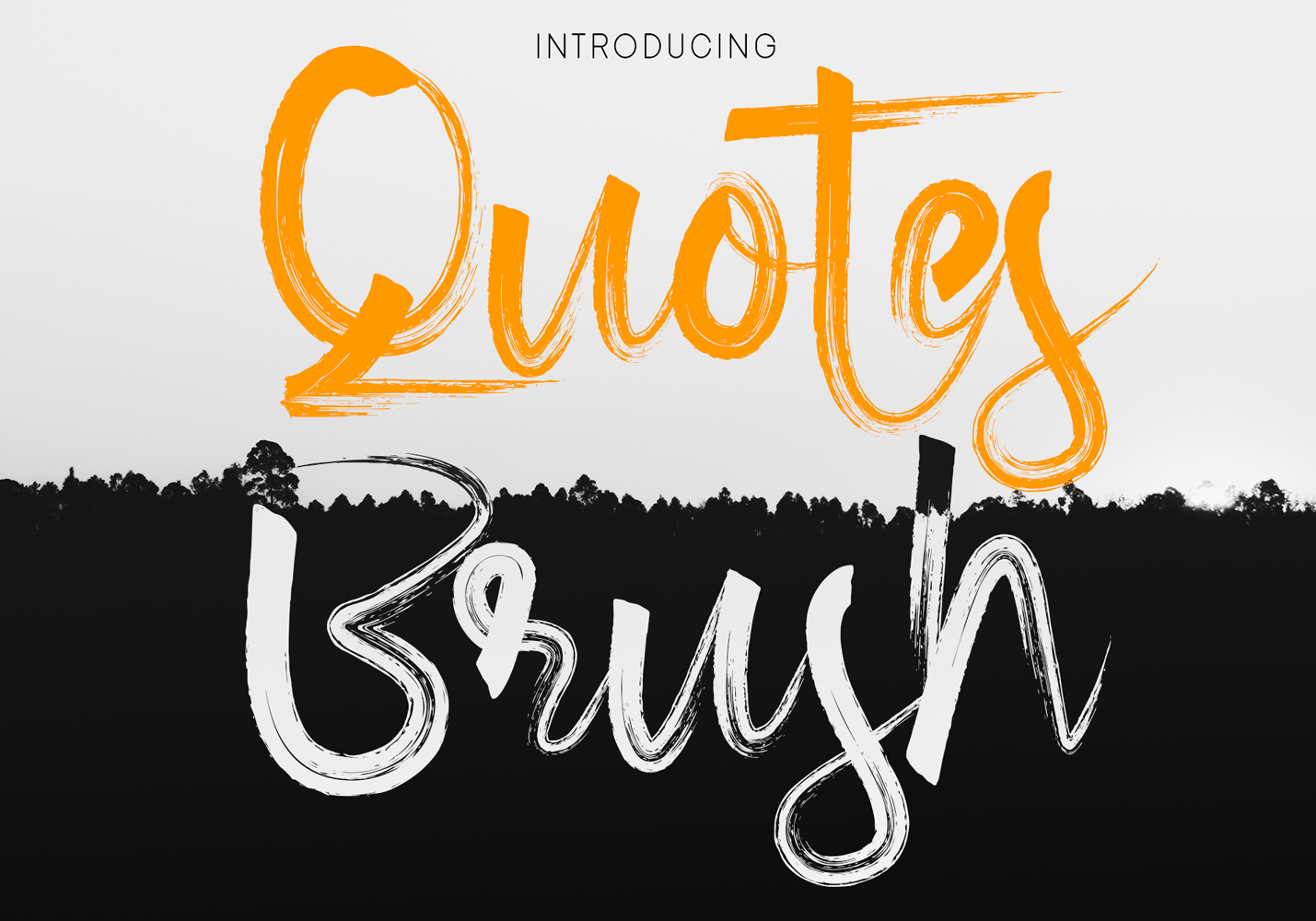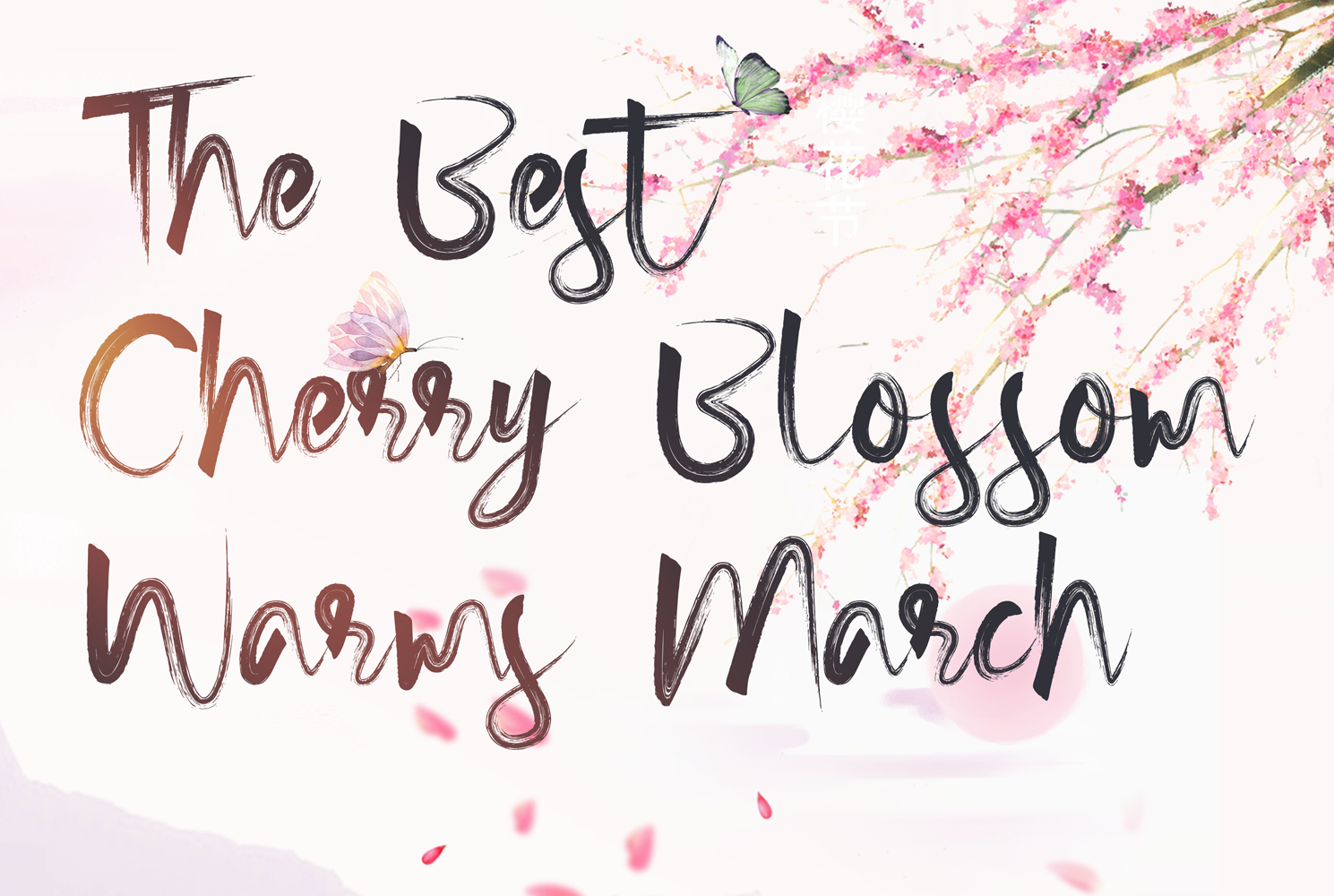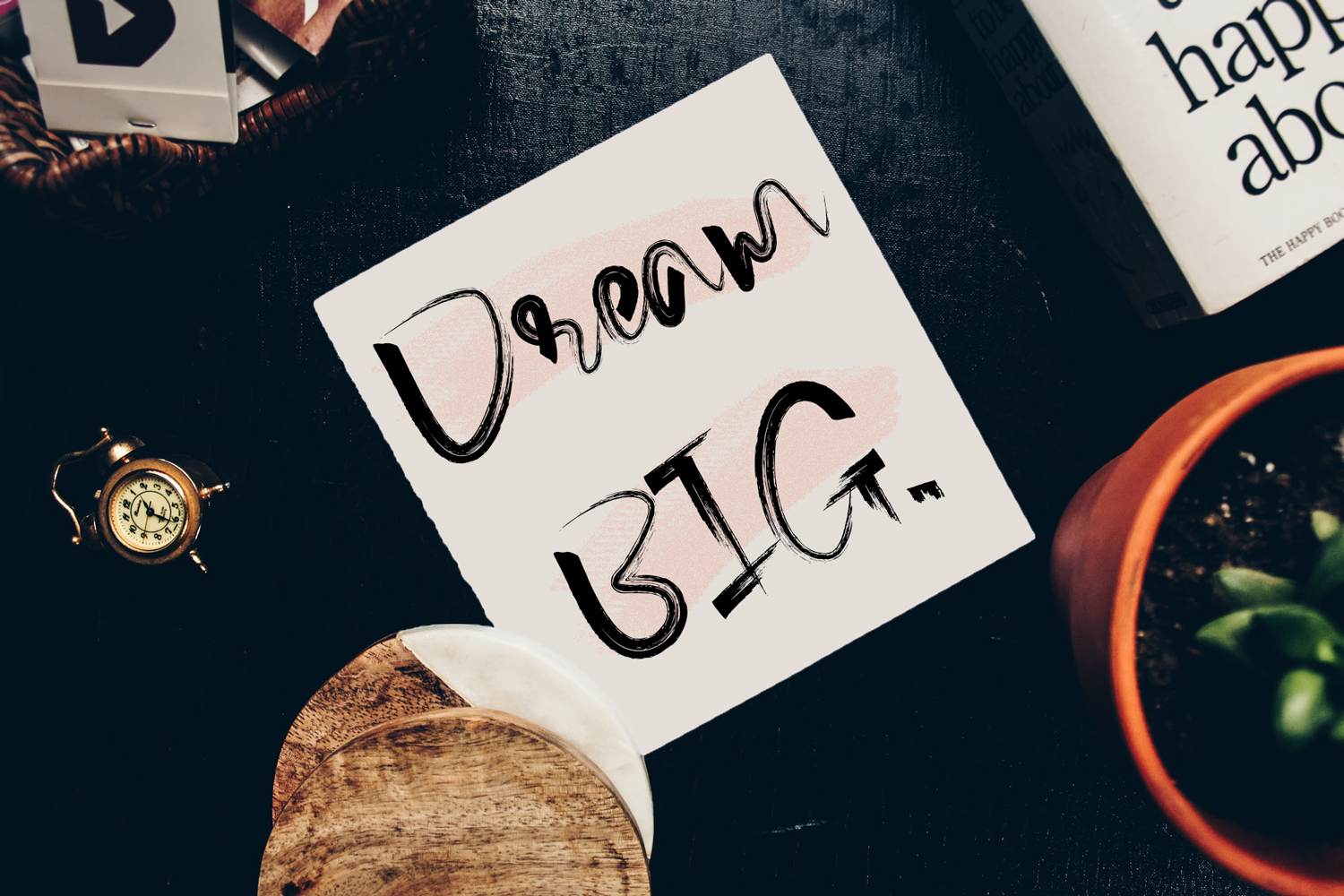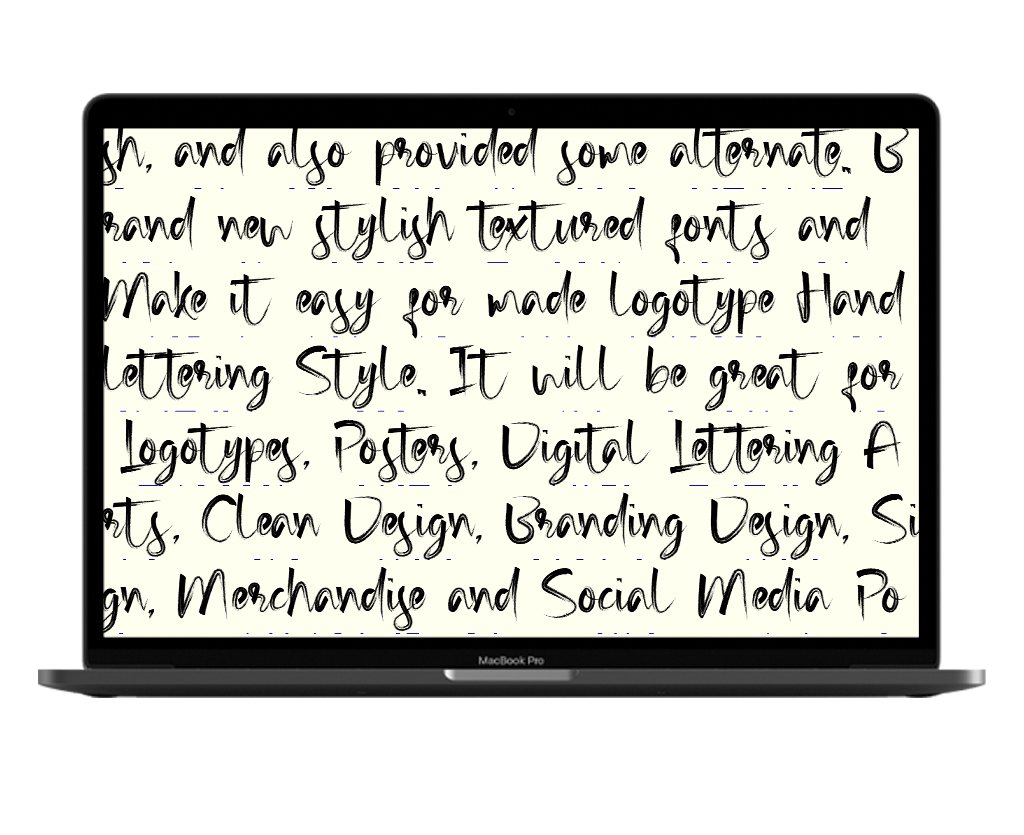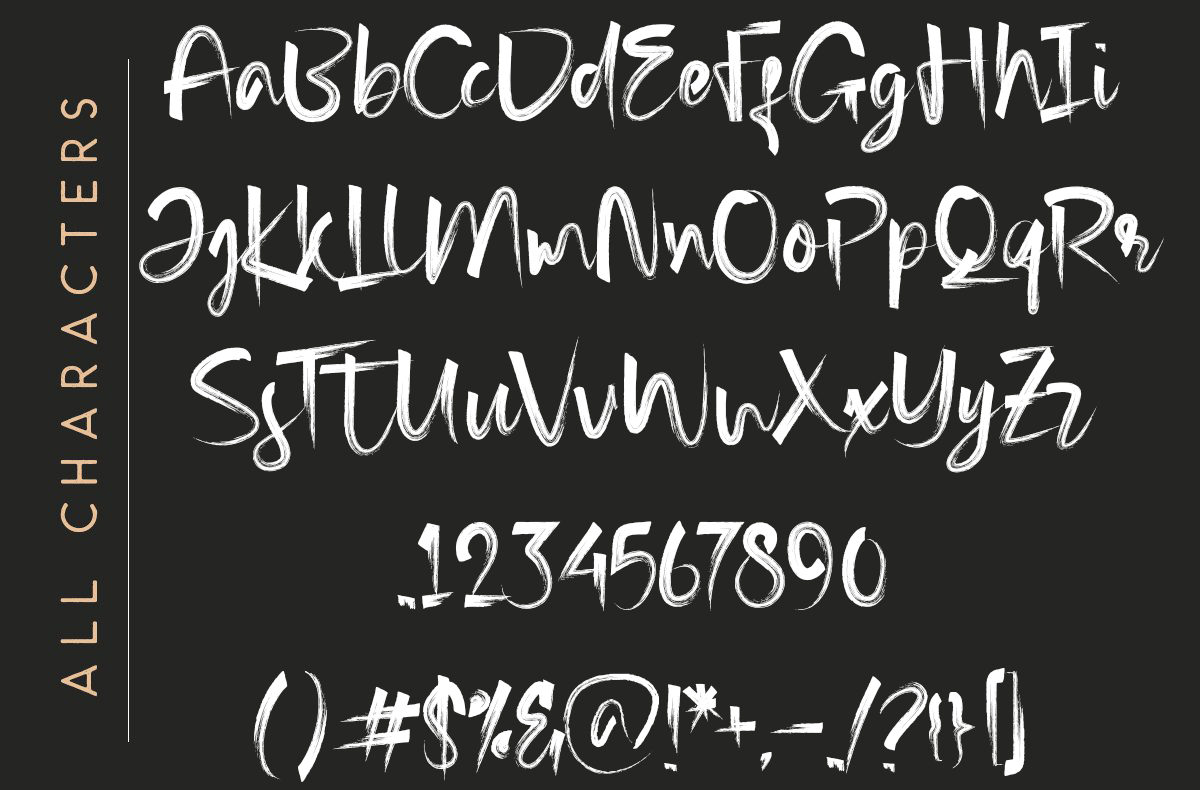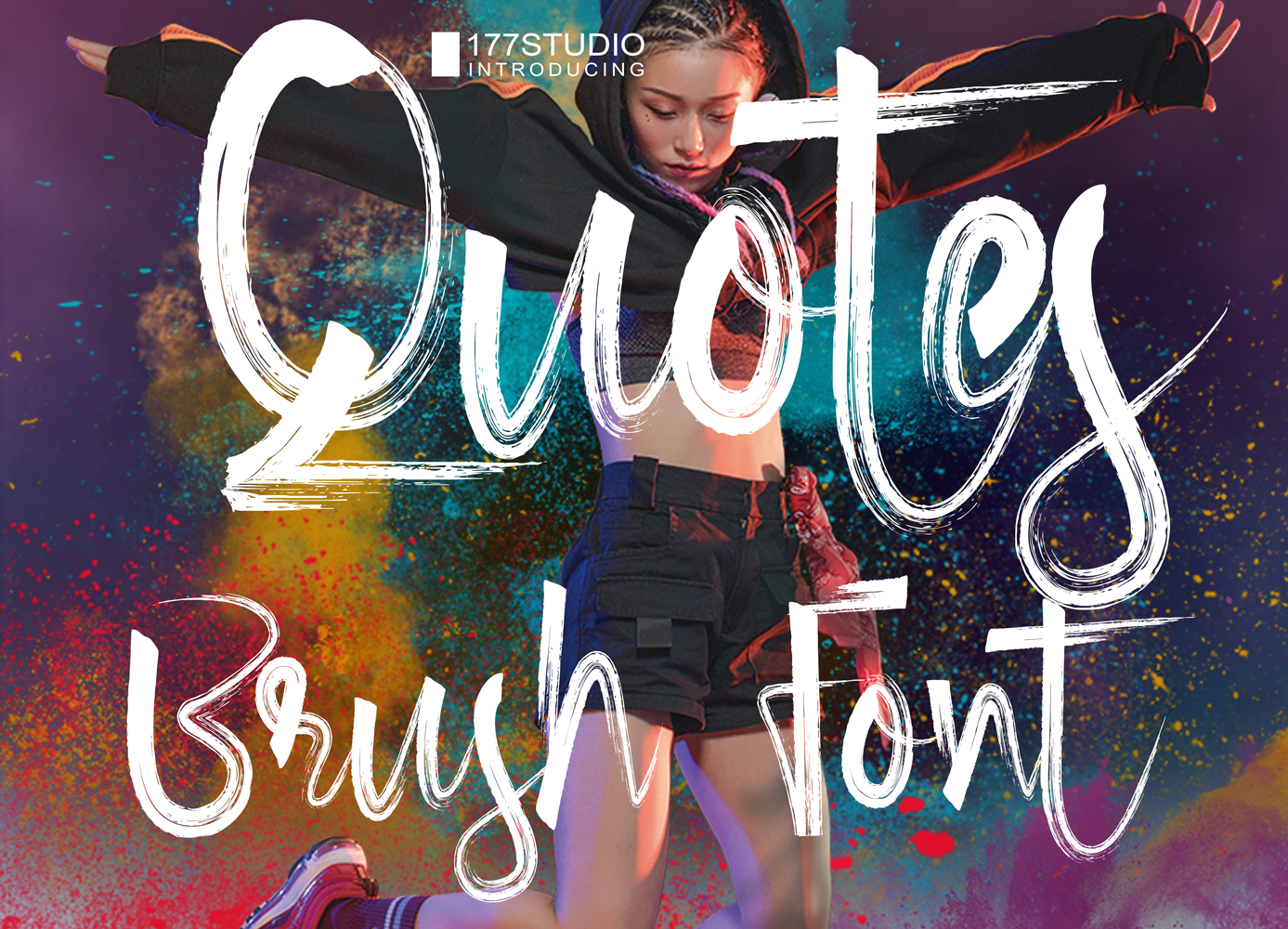
Introducing Quotes Brush Font. A texture brush font. This is a unique hand made brush font created using realistic brush strokes including inconsistent textures & letter-forms to give you the same look & feel as a real brush would!
This font is suitable for various projects, such as invitations, stationery, social media, logos, weddings, branding, graphic design, with the addition of a few swashes. and can be combined with various types of serif fonts to perfect the project you want to work on.
Quotes Brush Font